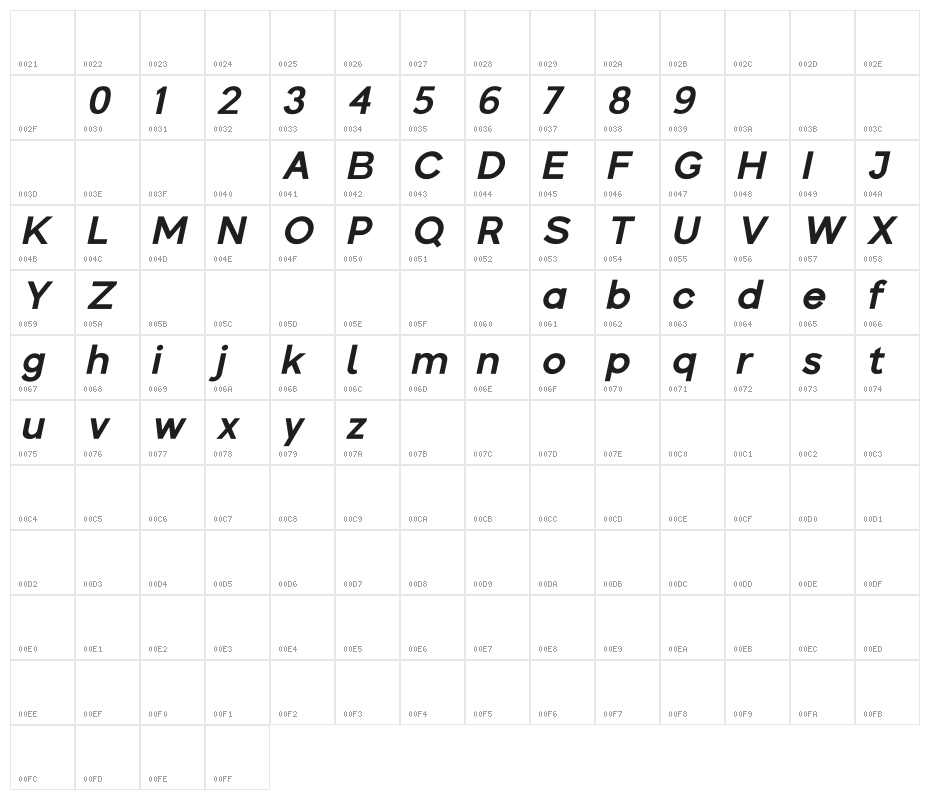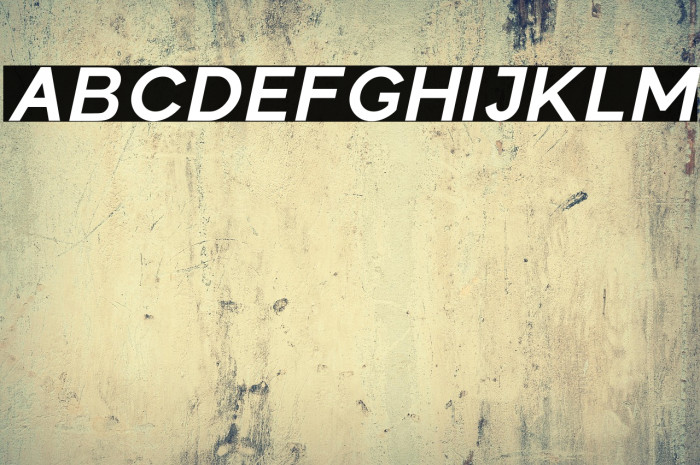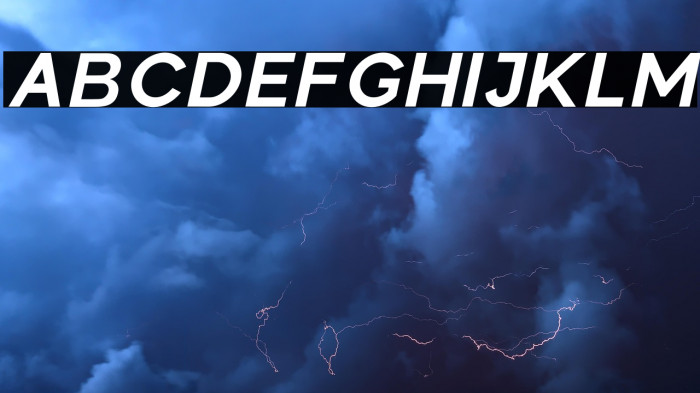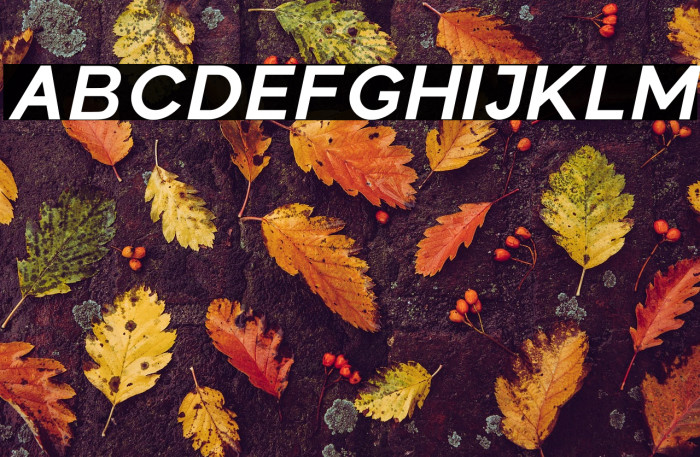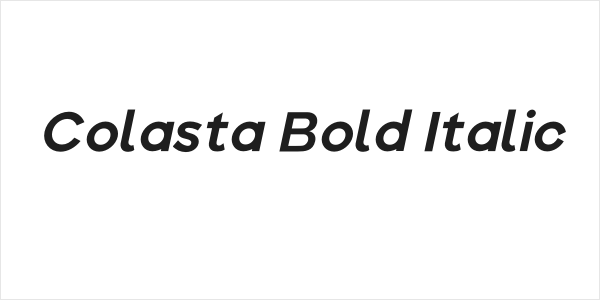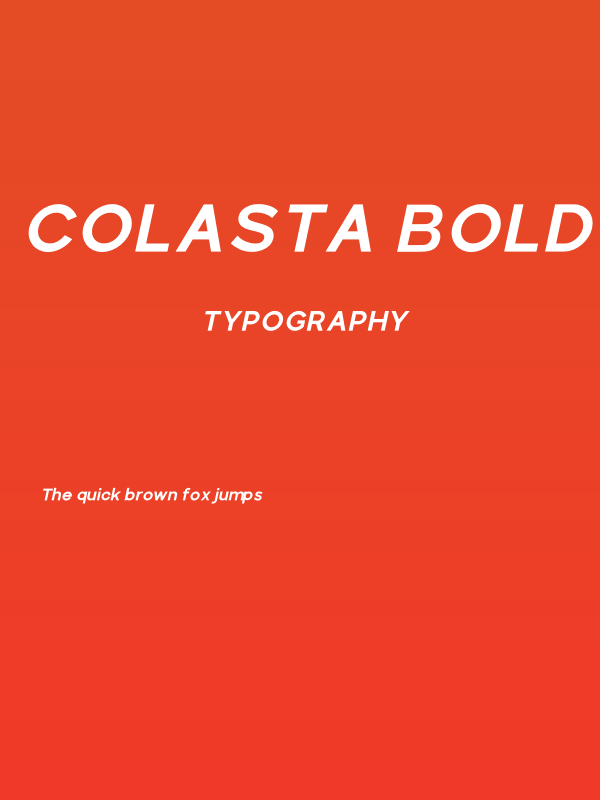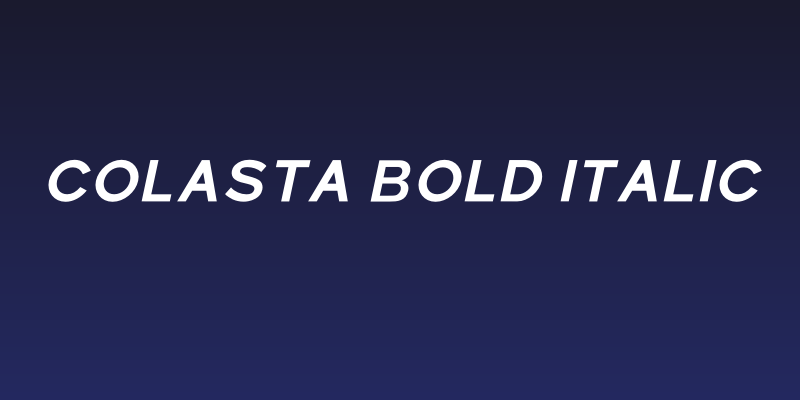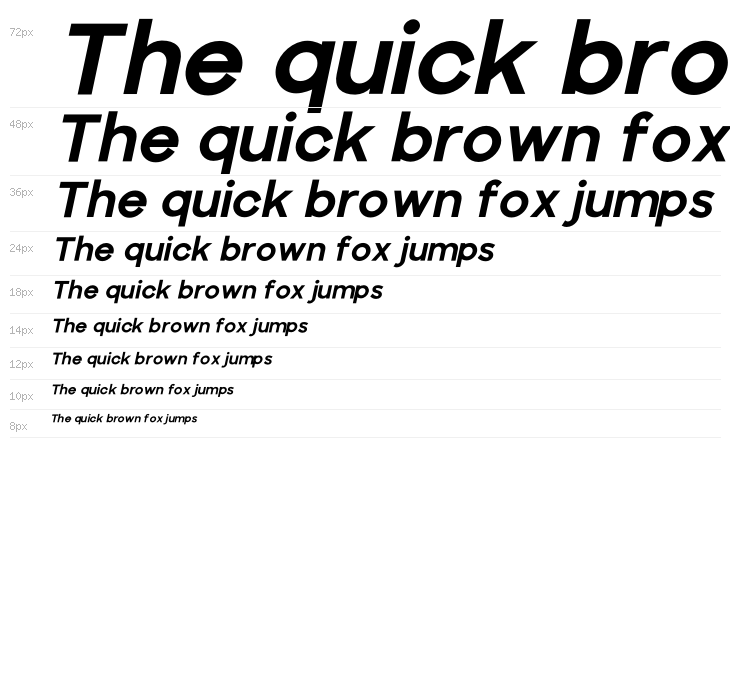
Colasta Bold Italic Font
Colasta Bold Italic Description
This font features a bold and italicized style, characterized by its clean and modern sans-serif design. The letters are slightly slanted, giving a dynamic and forward-moving appearance. The strokes are consistent in thickness, providing a uniform look across all characters. The font maintains a balanced proportion, making it highly legible and versatile for various design applications. Its bold weight ensures strong visibility, while the italic style adds a touch of elegance and sophistication. The numbers and special characters are designed to match the overall aesthetic, ensuring cohesion in any text setting.